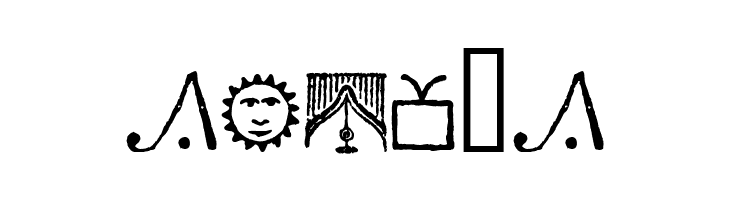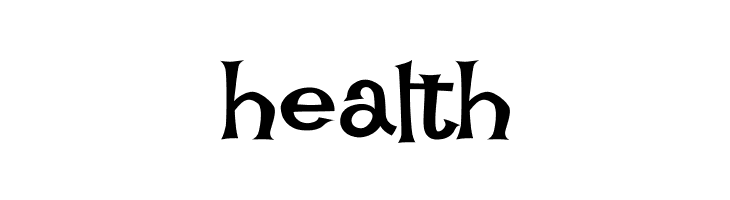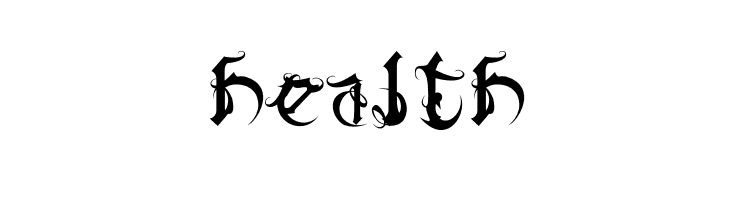
A collection of intricate, mystical symbols with esoteric and celestial motifs.
A bold, decorative font with whimsical, medieval-inspired elements.
A bold Gothic-style font with sharp, angular strokes and medieval influences.